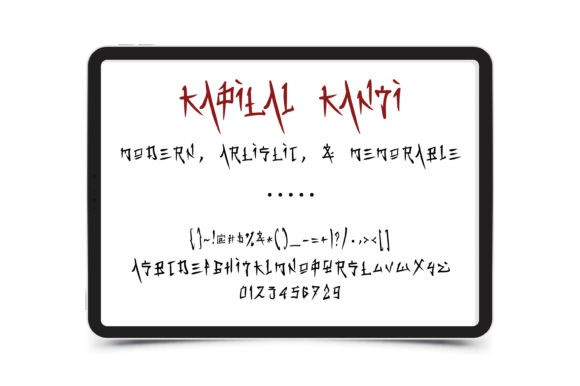
Kapital Kanji Font
Kapital Kanji Display Font is an incredibly unique, Japanese-inspired display font. It will look stunning on any food menu, poster flyer, or print.
Use this font for your designs and explore its endless possibilities.